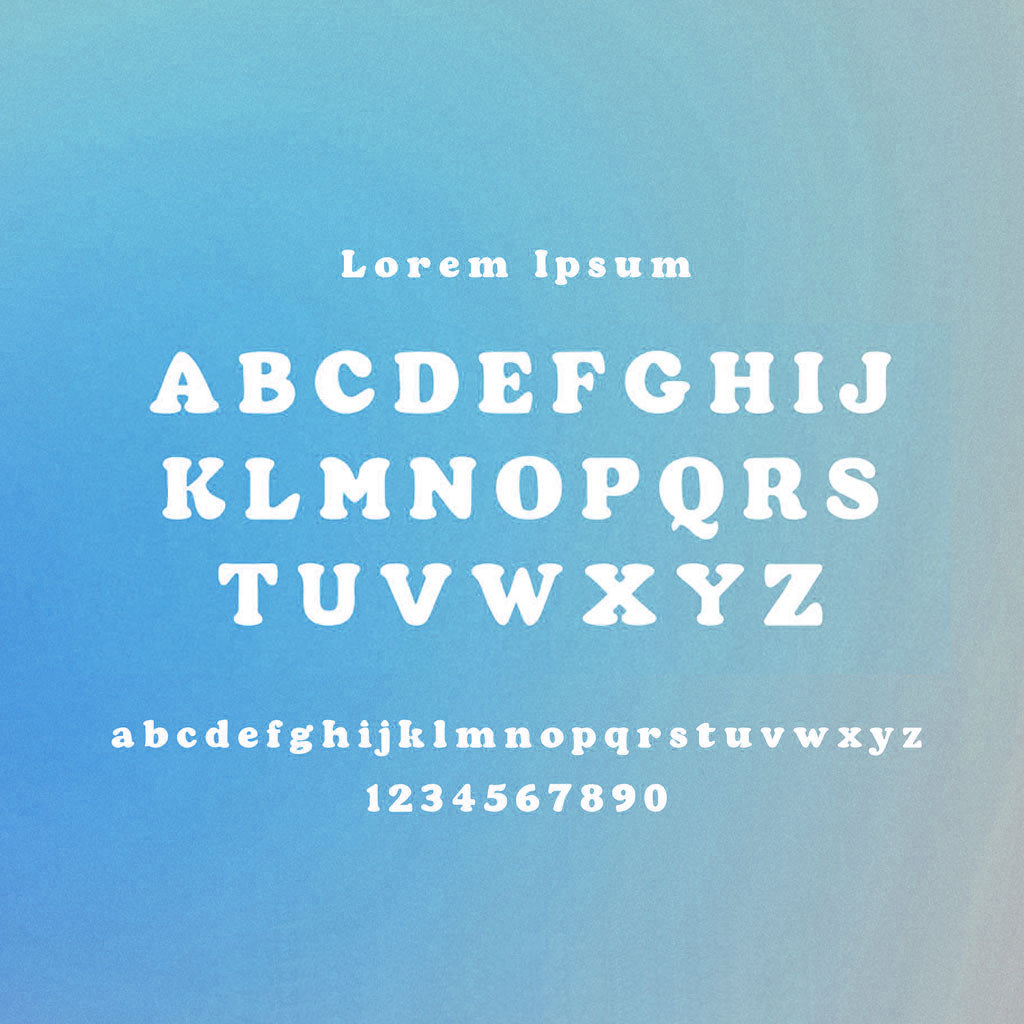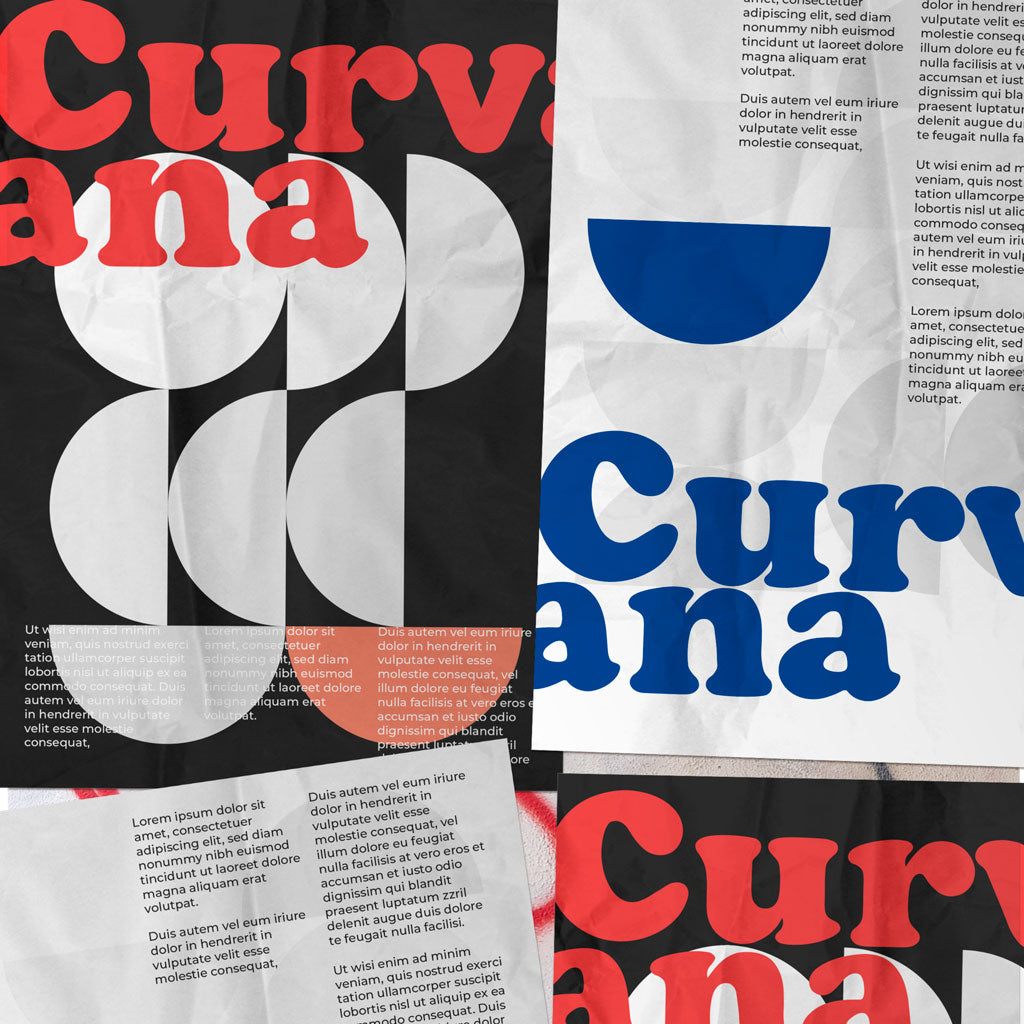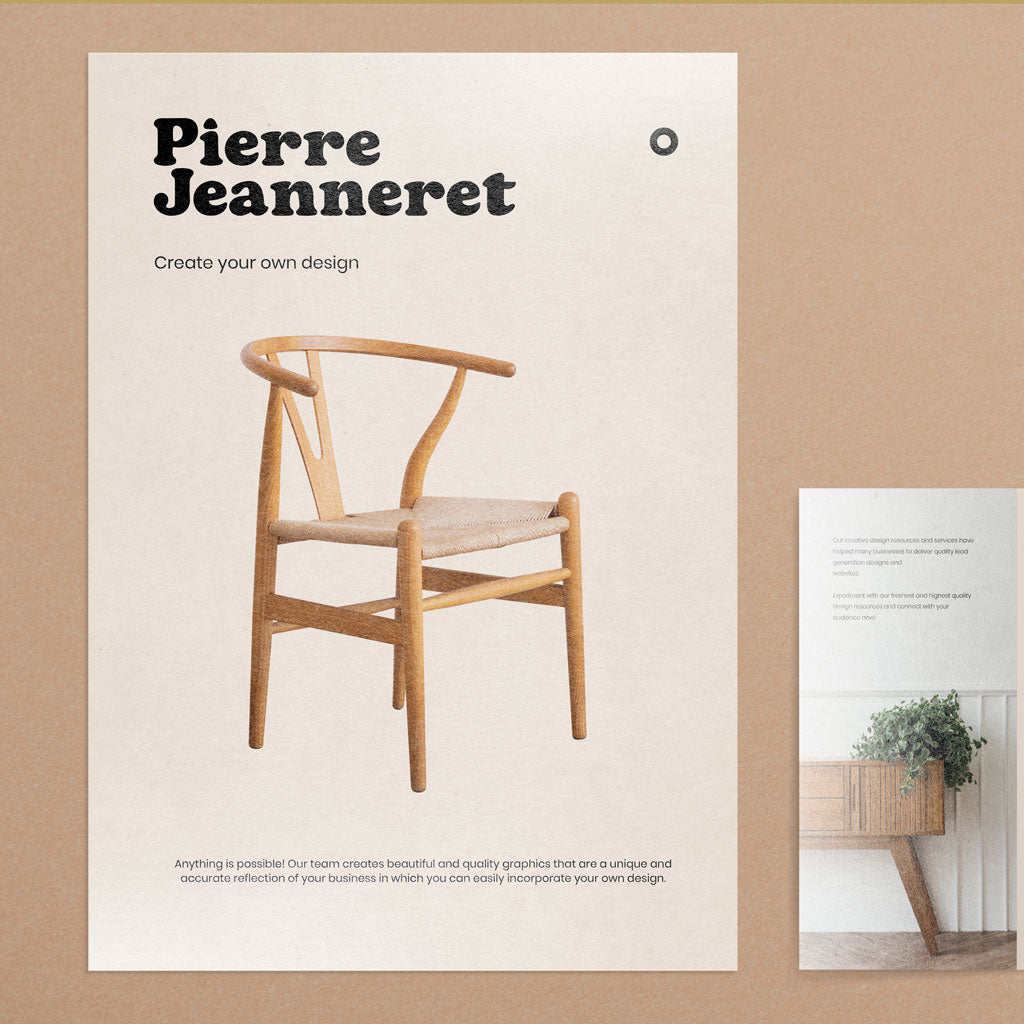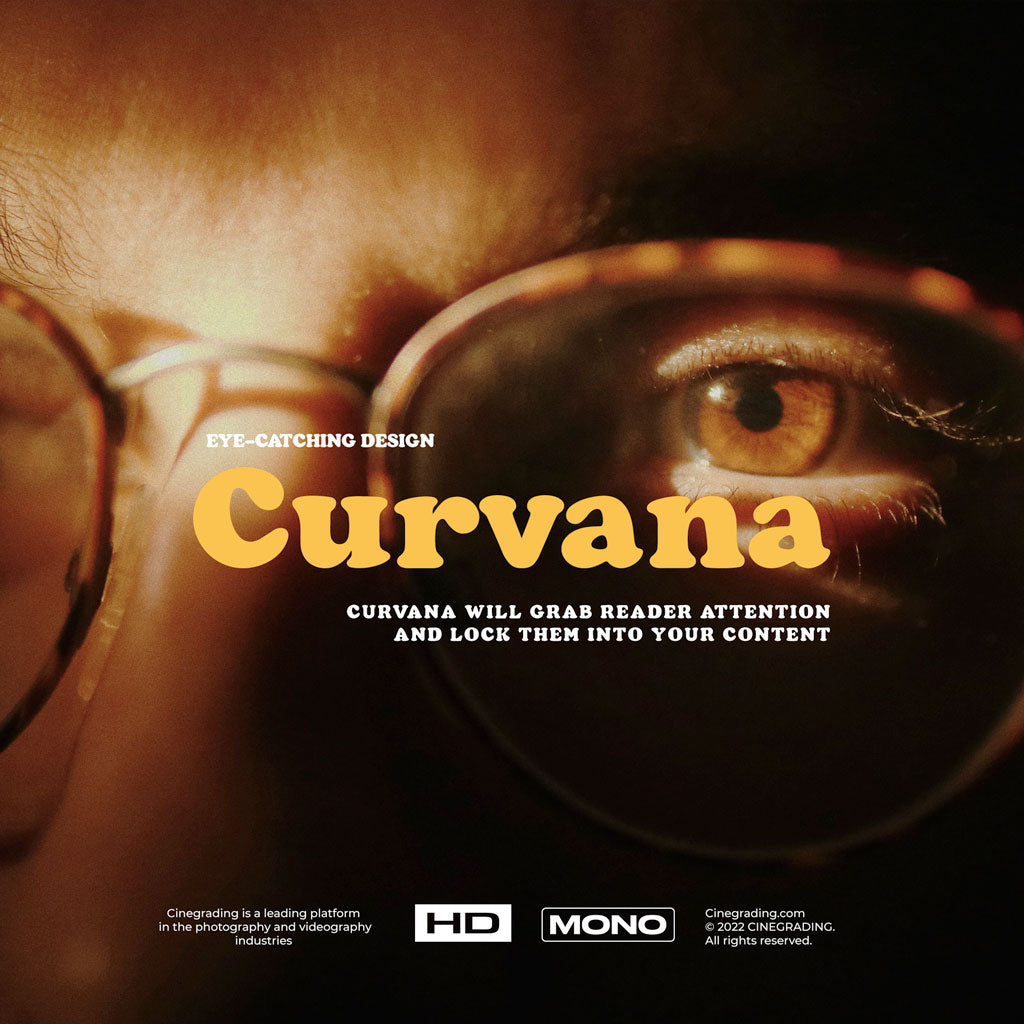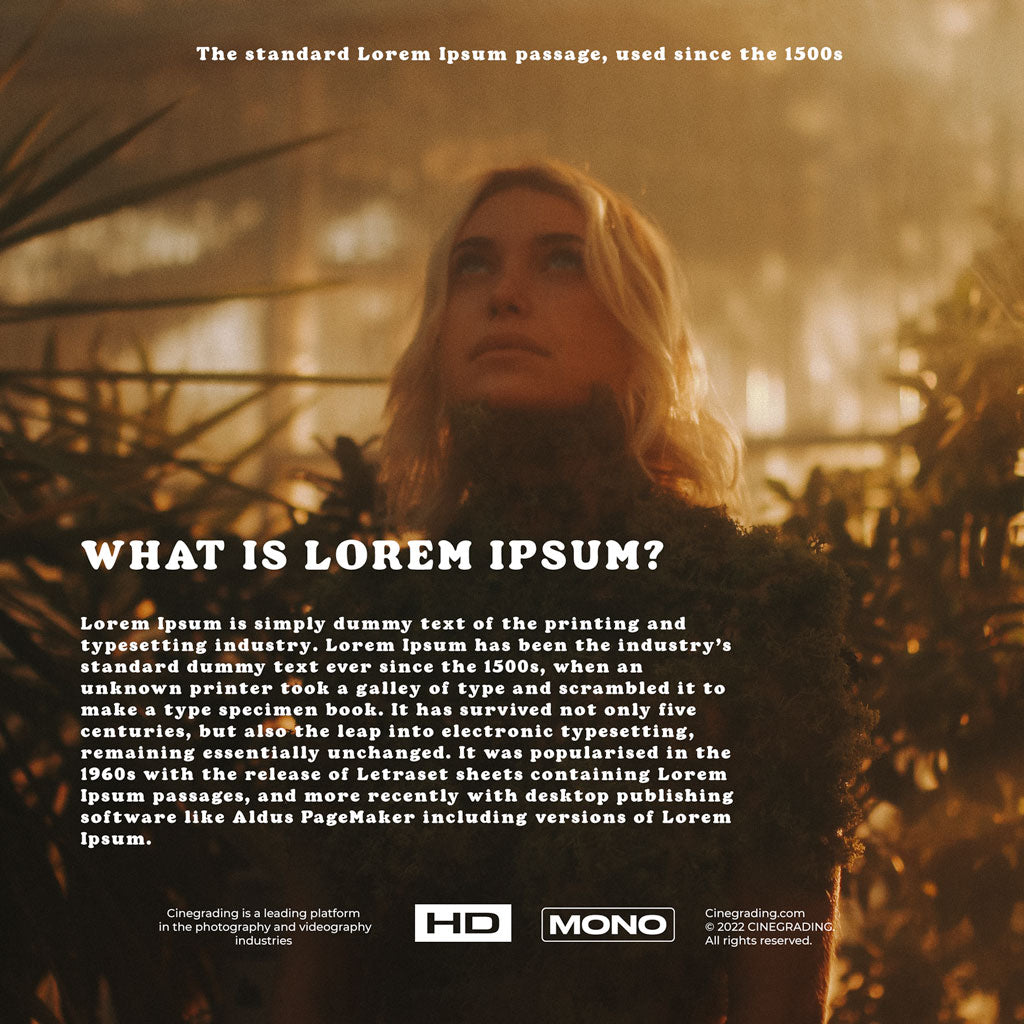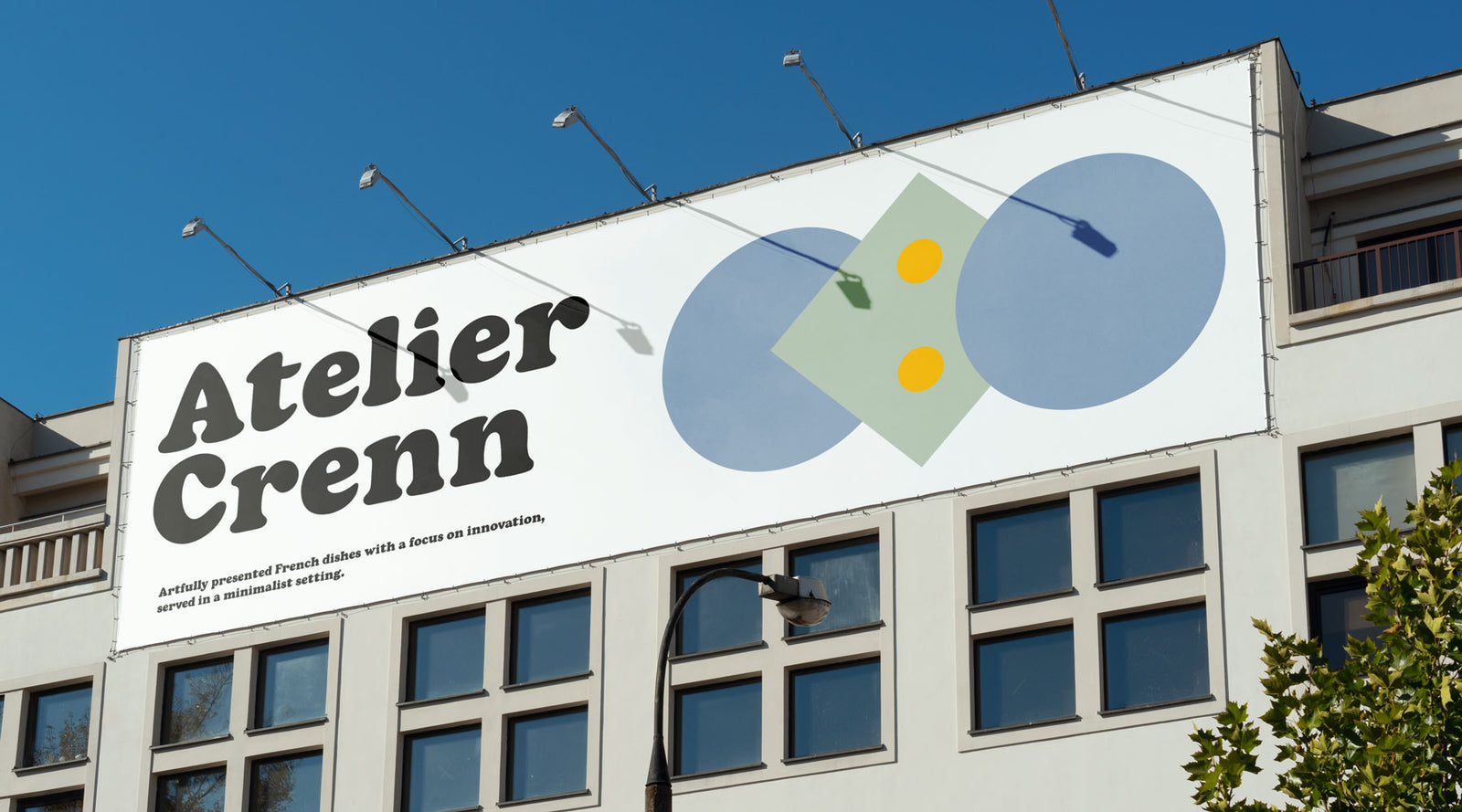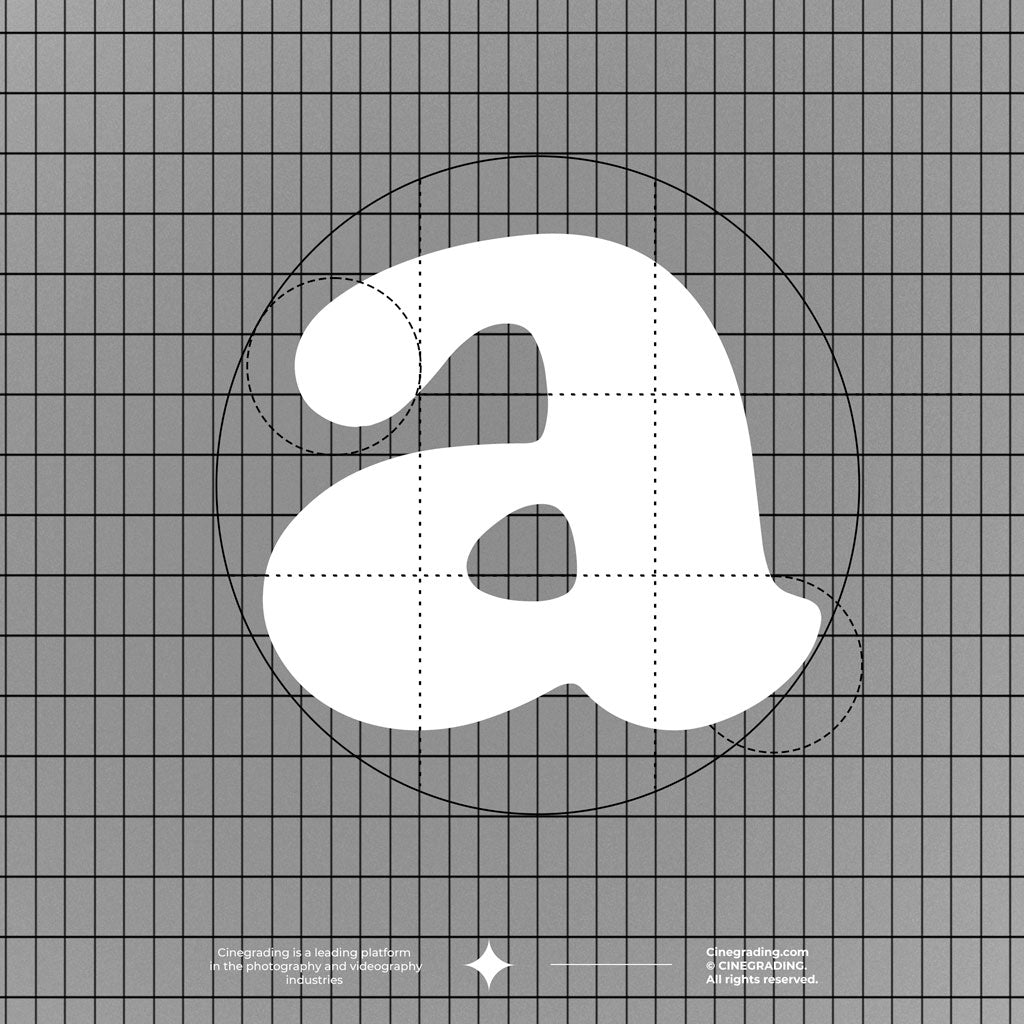
+Cine Curvana Font
If you’re looking for the perfect font to get noticed, check out Curvana, by Cinegrading. With smooth, rich curves and a bold, eye-catching design, Curvana will grab reader attention and lock them into your content.